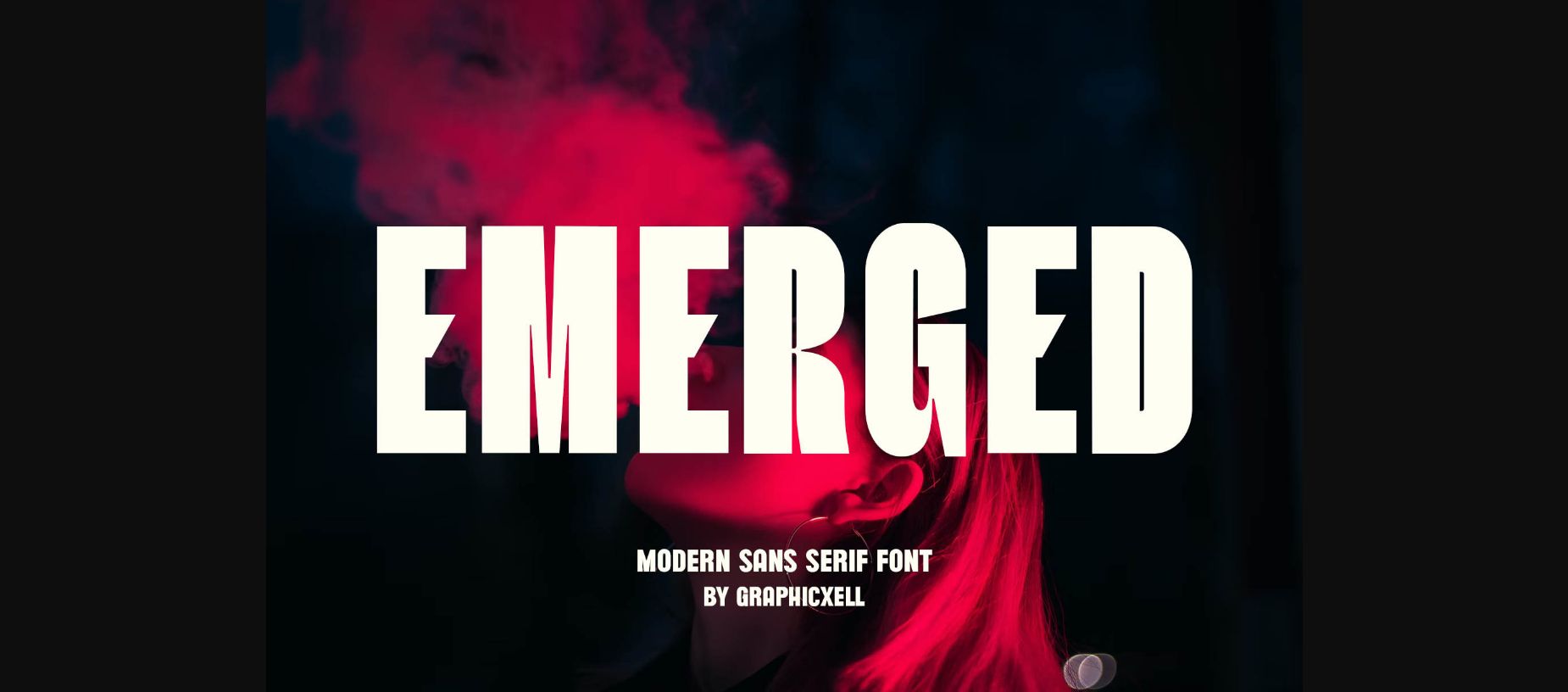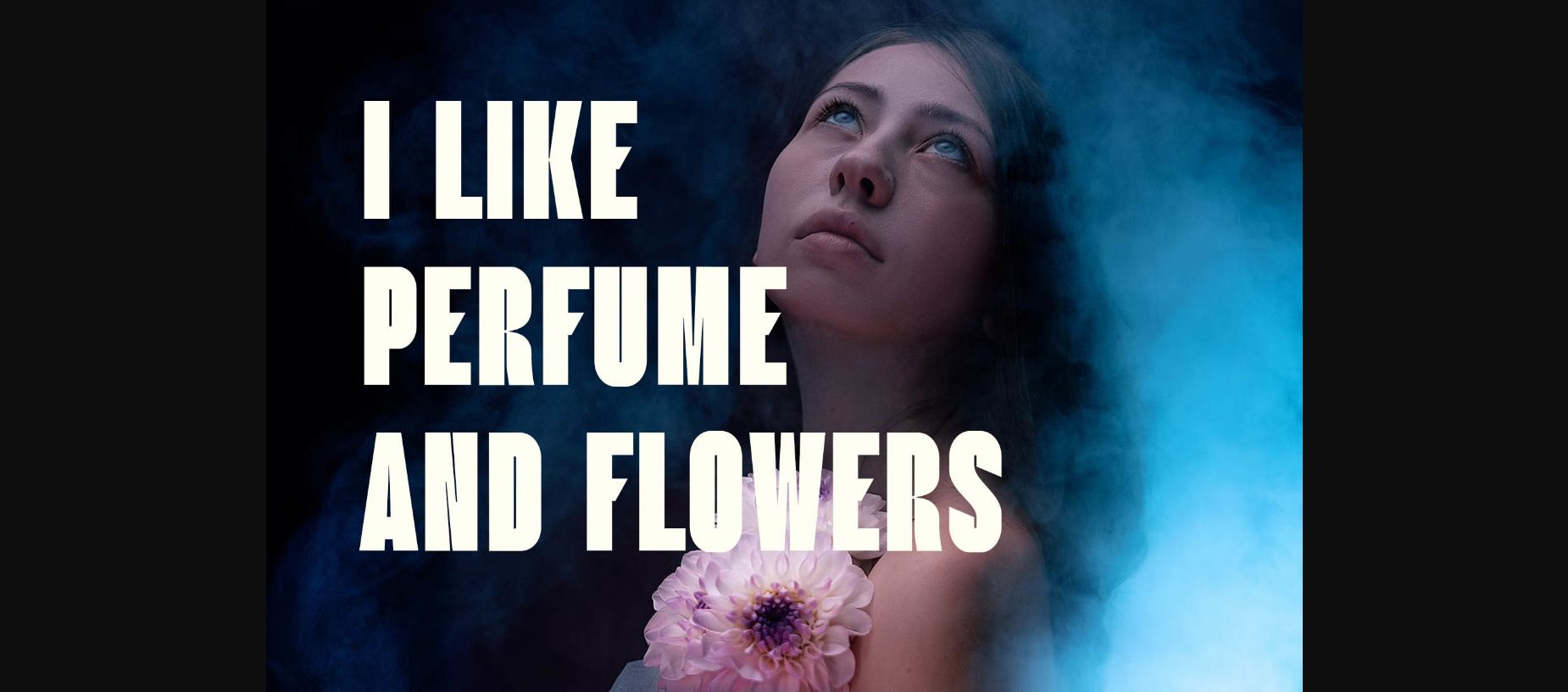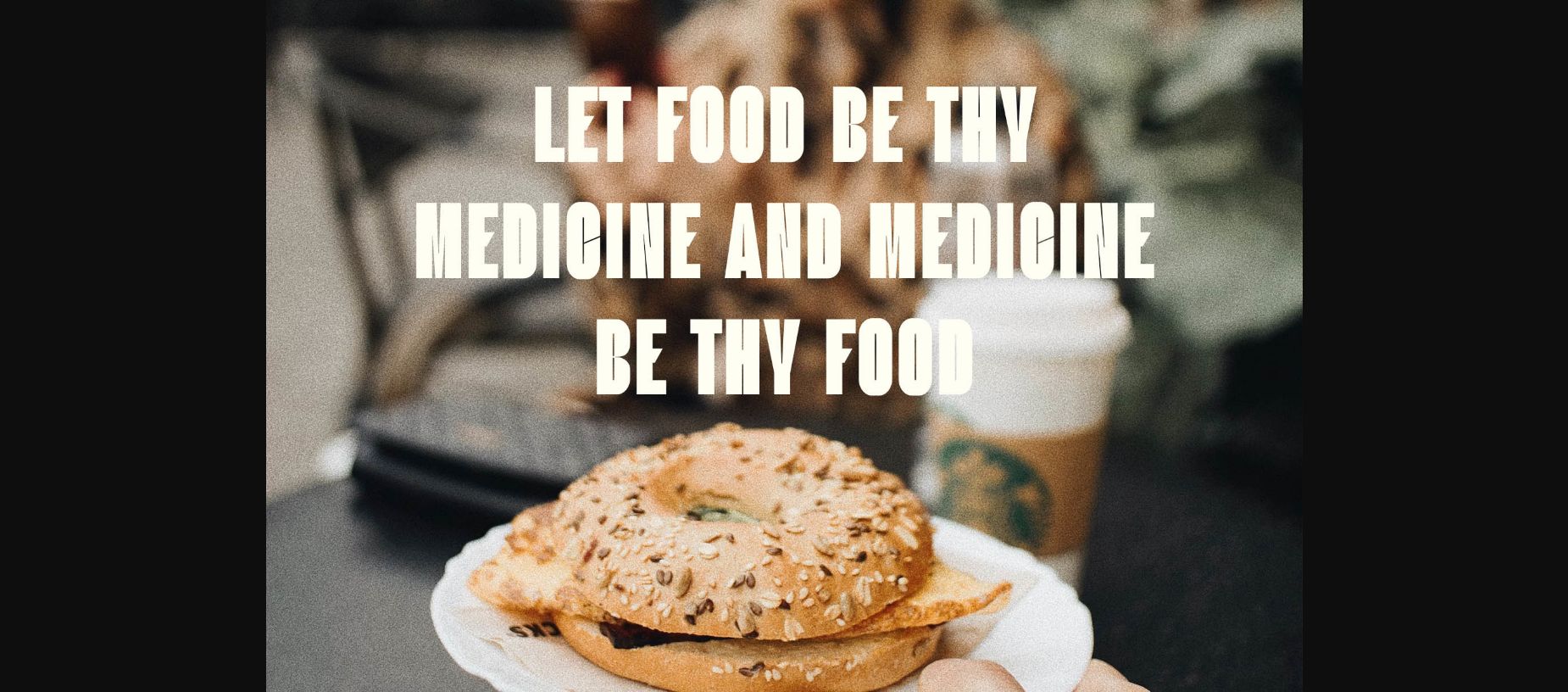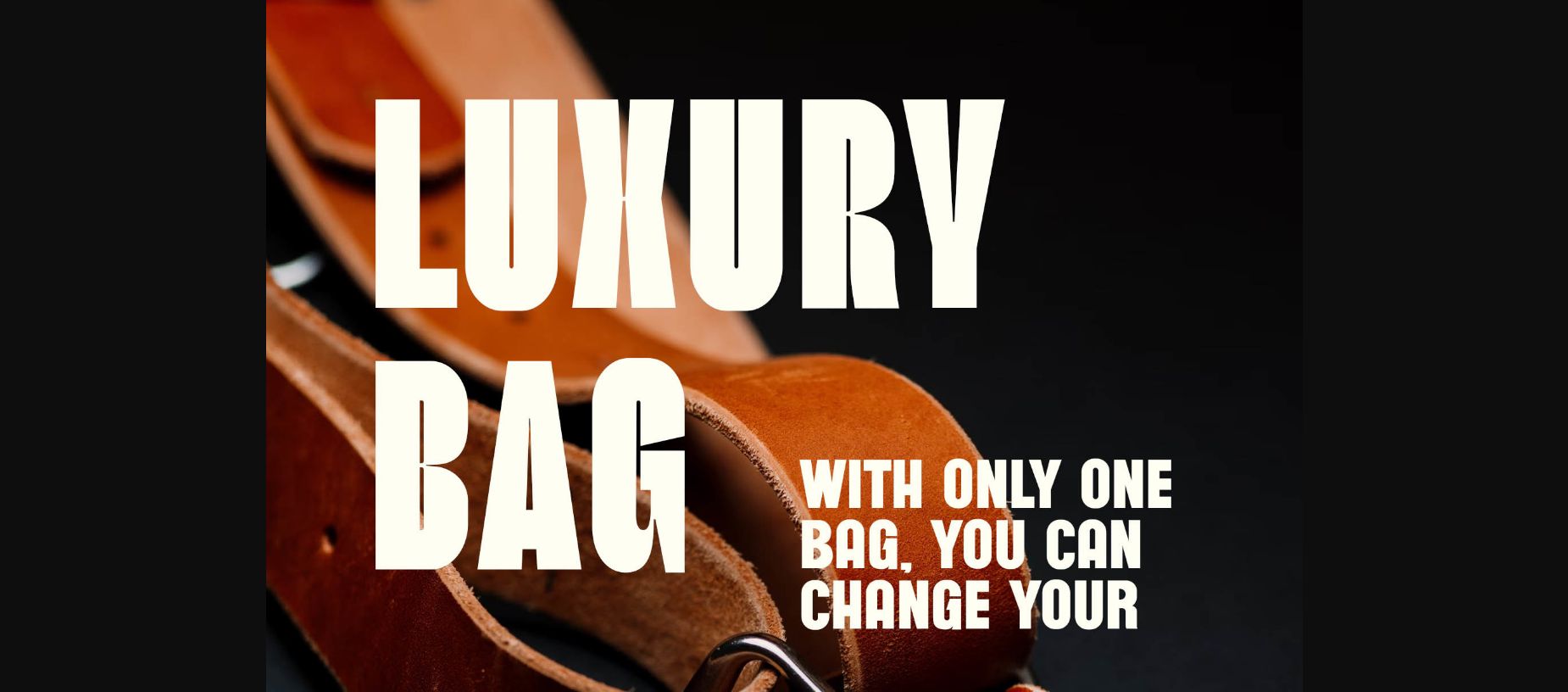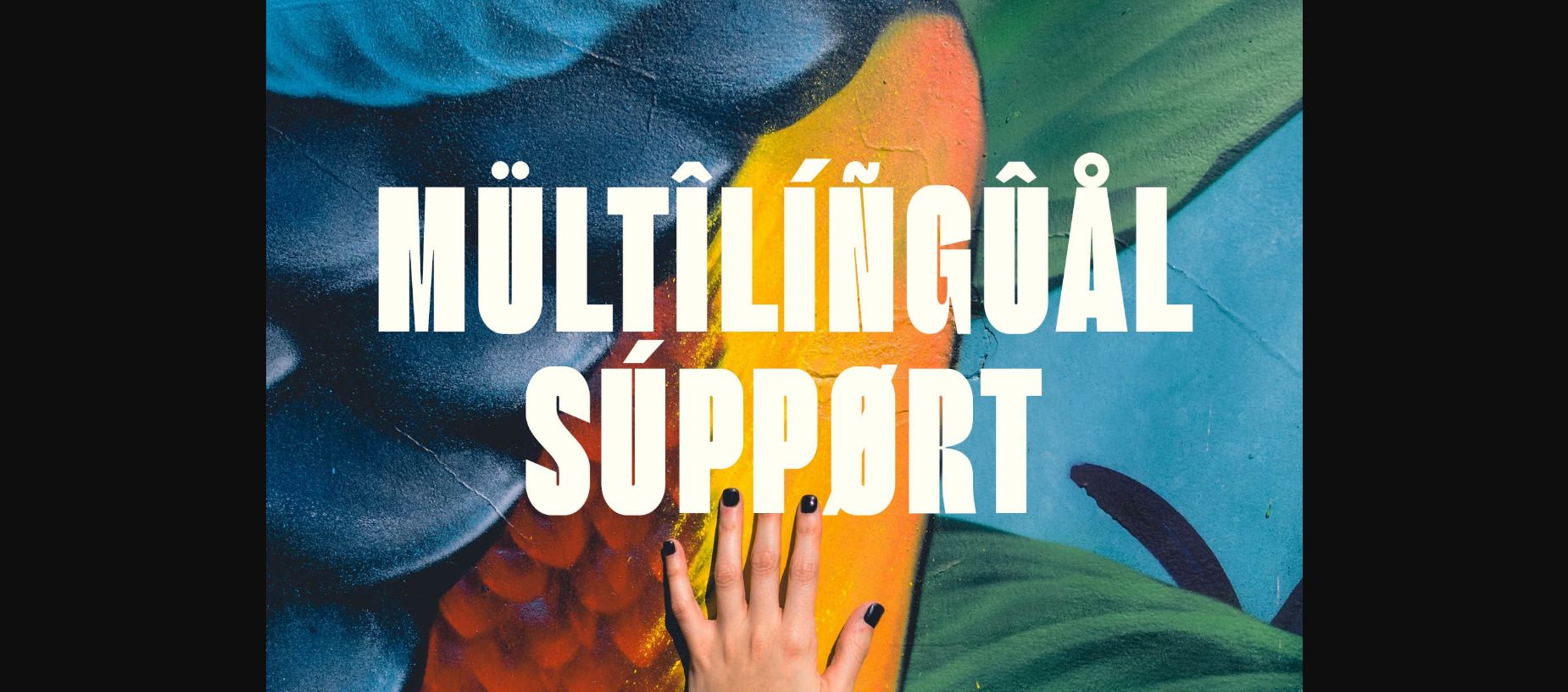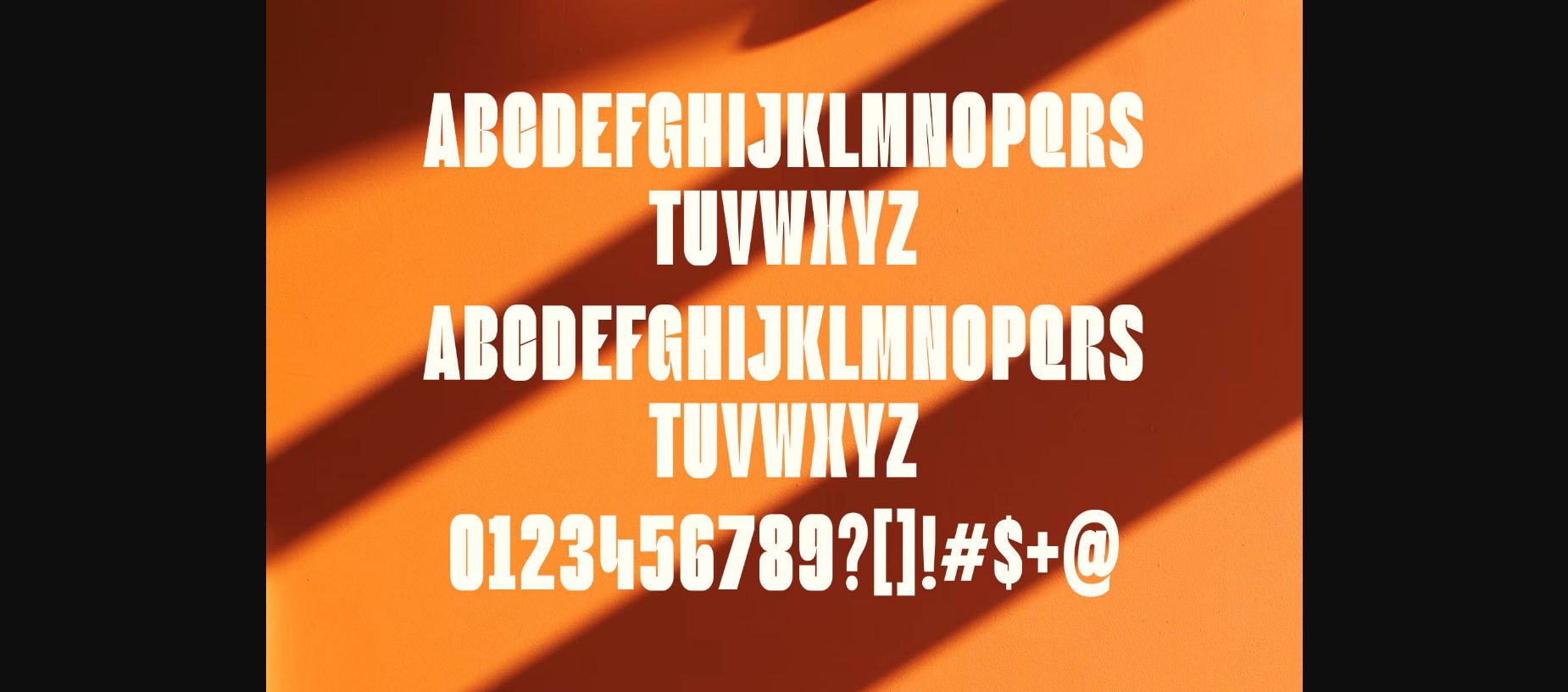
Emerged Font
About Emerged Font
Inspired by the famous minimalist logo, Emereged is perfect for the purposes of designing templates, brochures, videos, advertising branding, logos, invitations, layout designs, elegant crafting, beauty designs and more.